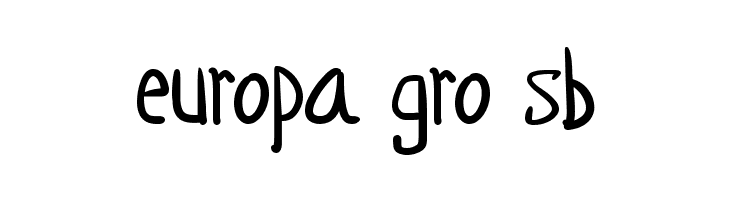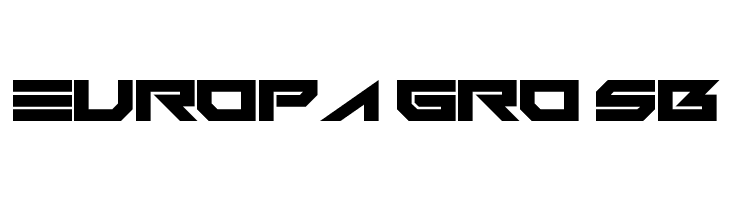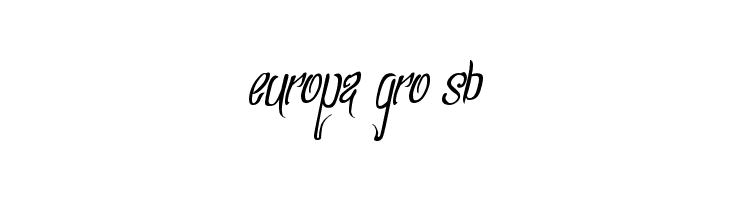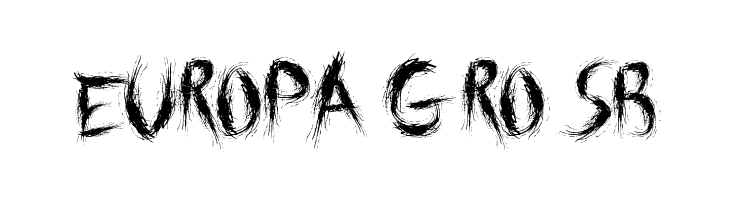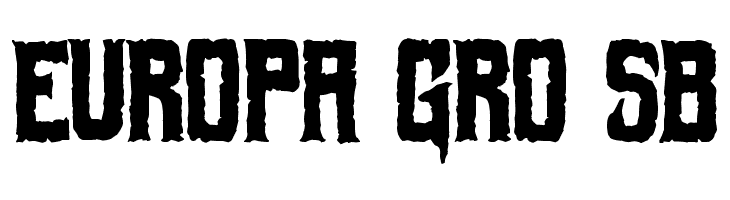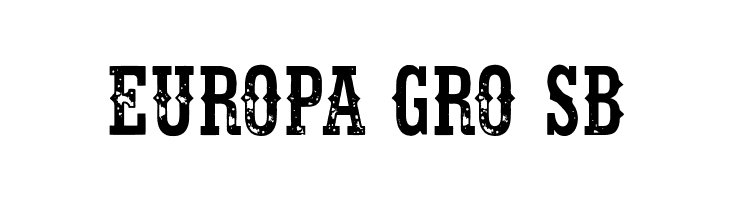
An artistic script font with elegant, flowing curves and a calligraphic style.
A bold, distressed slab serif font with a rugged, vintage appearance.
Casual handwritten font with rounded, playful forms.
A bold, angular font with a futuristic and aggressive design.
A rugged, distressed font with bold, jagged edges and a grunge aesthetic.
A playful, freehand font with a casual, handwritten style.
An elegant, flowing script font with thin, delicate lines and graceful curves.